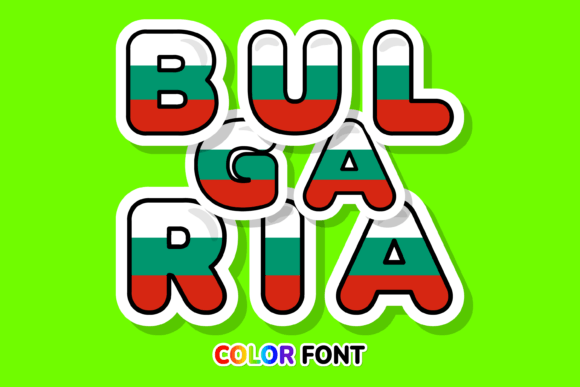
Dive into Bulgaria Font, a dazzling splash of colors inspired by the Bulgarian Flag, crafted by JUSTTYPE to be your go-to font for any creative venture. This colorful font is not just a font; it's an explosion of creativity waiting to be unleashed onto your designs, crafts, and creations.
With Bulgaria Font, you can transcend the ordinary and paint your ideas with vibrant hues. Its captivating color palette will infuse your designs with a sense of joy, energy, and cultural flair. Whether you're creating custom designs for your business, bringing DIY projects to life, or simply adding a touch of whimsy to your personal projects, Bulgaria Font is your perfect partner.
Bulgaria Font's versatility knows no bounds. Its enchanting colors dance effortlessly across any backdrop, adding a touch of elegance to invitations, flyers, social media posts, and marketing materials. It's the perfect font for those who dare to be different, who embrace the extraordinary, and who want their creations to leave a lasting impression.
Step into a world where creativity meets color and where your imagination knows no limits. With Bulgaria Font, you'll find yourself reaching new heights of design excellence, captivating your audience with every stroke of the pen or click of the mouse.
Don't settle for ordinary fonts that blend into the background. Embrace the vibrancy, the energy, and the sheer joy of Bulgaria Font. Let your creativity soar, let your designs shine, and let your creations become masterpieces.